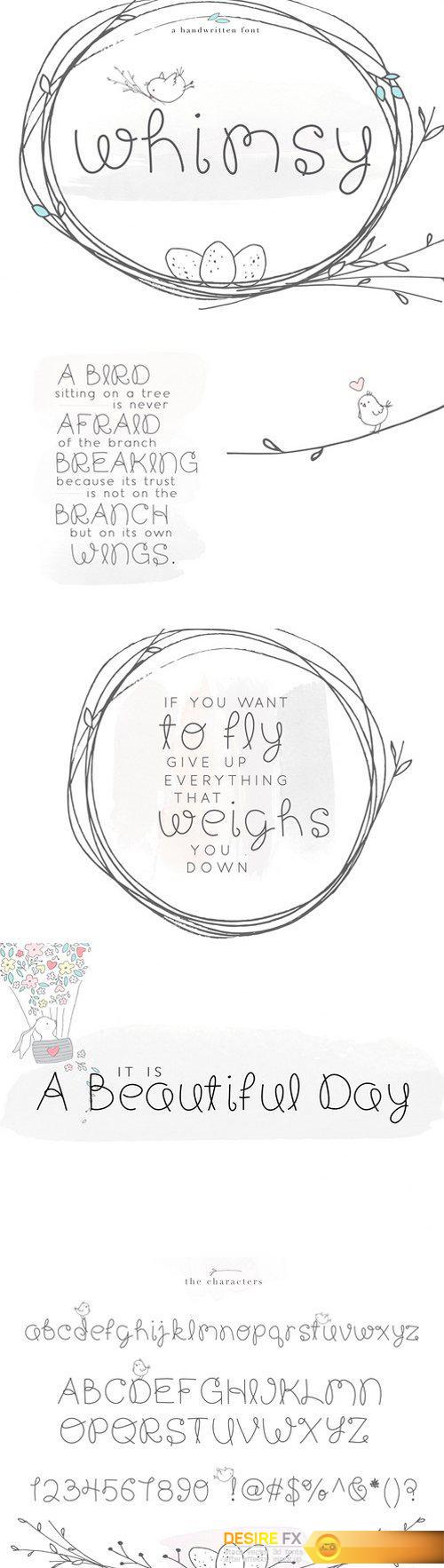
CM – Whimsy – Whimsical Handwritten Font 2515811
Whimsy is a whimsical handwritten font. This font is perfect for quotes, headings, blogs, logos, invitations and more! It is also great for children’s designs!